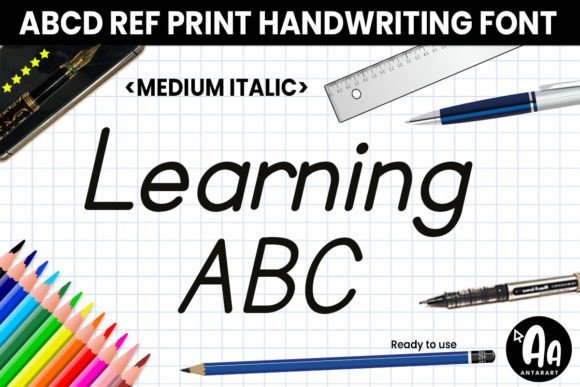
The Joy of Handwriting: Unlocking the Potential of the Abcd Ref Medium Italic Font
Do you remember the feeling of creating something with your own hands, watching your ideas come to life as you scribble down words and phrases? For designers, this sense of creativity is what drives us to push the boundaries of what’s possible. Whether it’s a children’s book, a school workbook, or a marketing campaign, the right font can make all the difference.
That’s where the Abcd Ref Medium Italic font comes in – a versatile display font designed specifically for creating worksheets and educational materials. Based on the D’Nealian Method, this font is perfect for teaching the print alphabet in a fun and interactive way. For designers, the Abcd Ref Medium Italic font offers a valuable resource for creating engaging educational materials that bring learning to life.
Abcd Ref Medium Italic Font Features
- Unique Characteristics: This font features a medium italic style with refined details and subtle nuances, making it suitable for academic, technical, and professional applications
Design Review: Abcd Ref Medium Italic Font
Overall, I have mixed feelings about the Abcd Ref Medium Italic font. While it has some great qualities, it also has some notable limitations. Here are my honest thoughts:
- Legibility: The font is incredibly easy to read, even at small sizes. The letterforms are well-spaced and well-designed, making it perfect for body text.
- Italics: The italic version of the font is beautifully crafted, adding a touch of elegance to any design.
- Consistency: The font is very consistent in its design, which makes it easy to use and maintain.
- Lack of personality: While the font is well-designed, it lacks a unique personality or character. It’s a solid, workmanlike font, but it doesn’t stand out in a crowded market.
- Limited expressiveness: The font is a bit too straightforward and lacks the expressiveness of some other fonts. It’s not great for making a statement or adding emotional depth to a design.
Overall, I think the Abcd Ref Medium Italic font is a solid choice for any project that needs a clear, readable font. However, it’s not the most exciting or expressive font out there, and it may not be the best choice for projects that need a bit more flair.
Compared to Abcd Ref Medium Italic, Playfair Display Italic has a more luxurious and refined feel, with more ornate details and a more dramatic italic slope.
Compared to Abcd Ref Medium Italic, Merriweather Italic has a more classic and traditional feel, with a more subtle italic slope and a more open letterform.